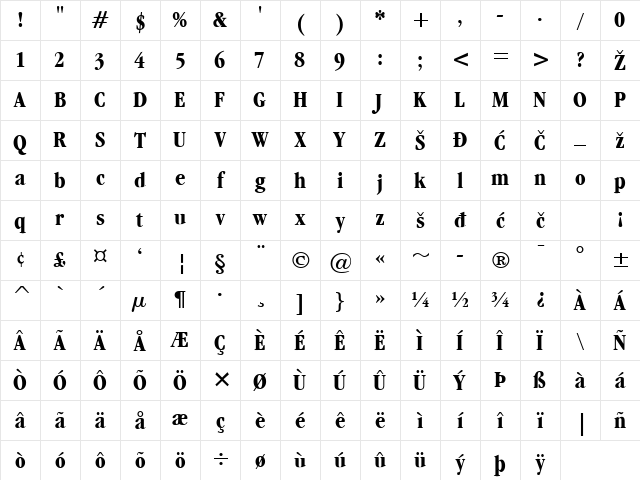
GaramondCond Bold Free Font
GaramondCond Bold
GaramondCond Family
Design Context for GaramondCond
GaramondCond is a composed and adaptable typeface that performs quietly and consistently across a wide range of design contexts. Its bold stroke weight gives it real presence on the page. Its narrow stance lets it pack a punch even in space-constrained designs.